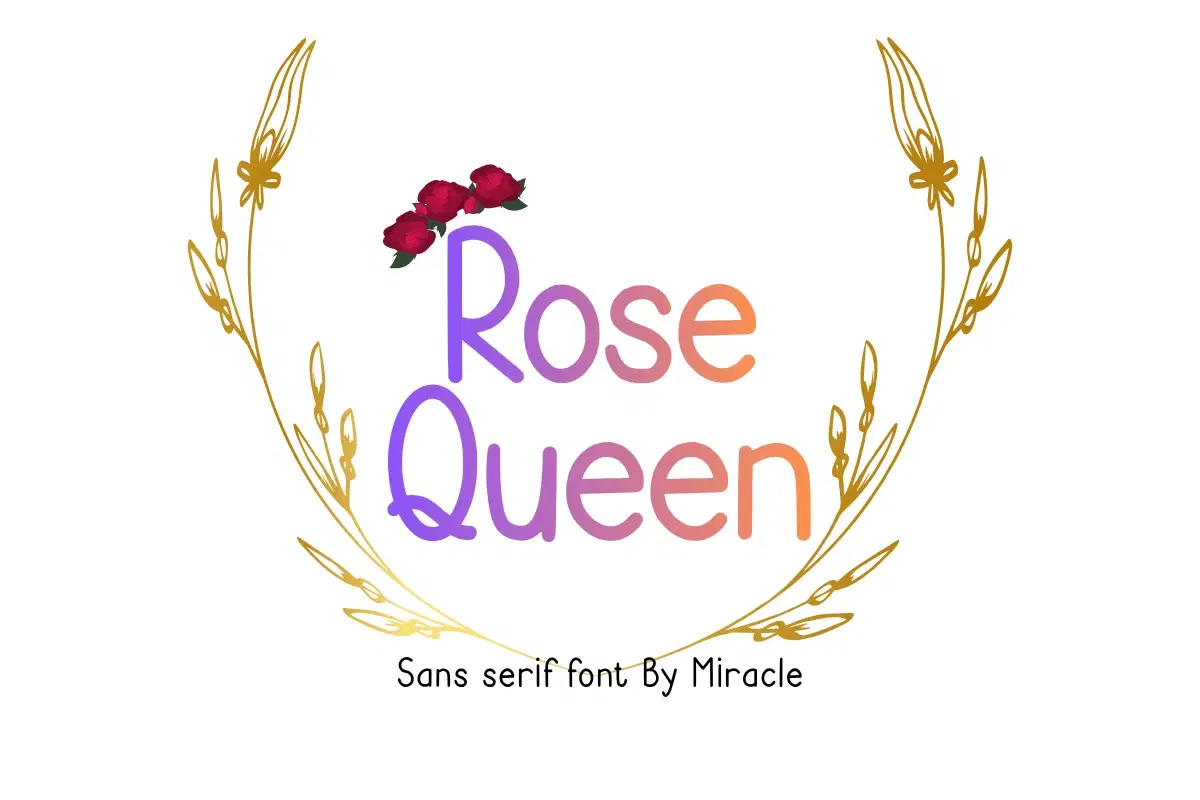
Embrace elegance with Rose Queen, a graceful sans serif font by Miracle. Featuring slender, elongated letterforms and a delicate hand-drawn touch, this font is designed to add a sophisticated yet whimsical charm to your creative works. It strikes a beautiful balance between modern minimalism and floral-inspired grace.
Rose Queen is an exquisite choice for projects that require a touch of luxury and femininity. Its clean lines and airy structure make it highly readable while maintaining a high-end, boutique aesthetic that is perfect for premium branding and artistic layouts.